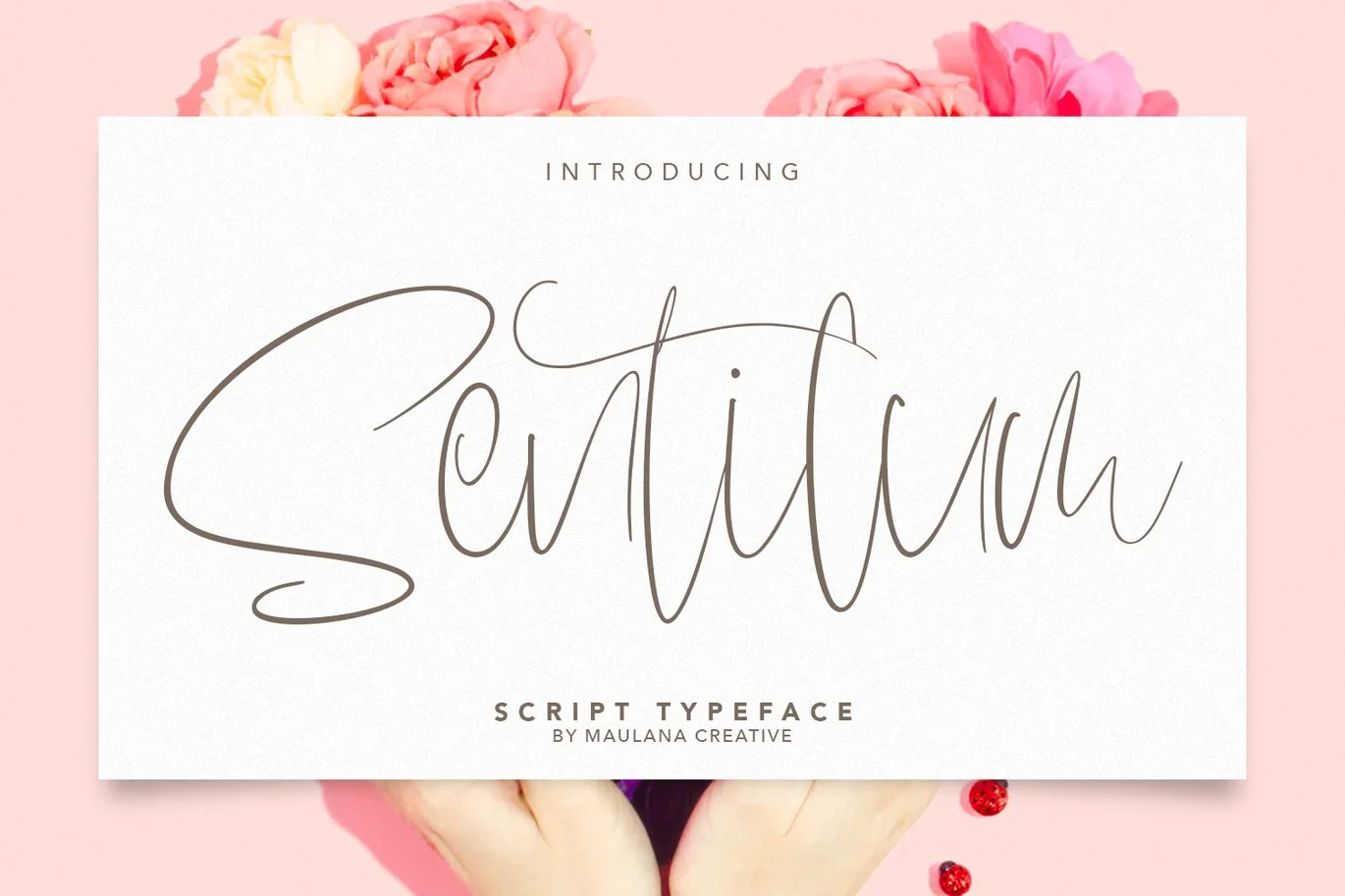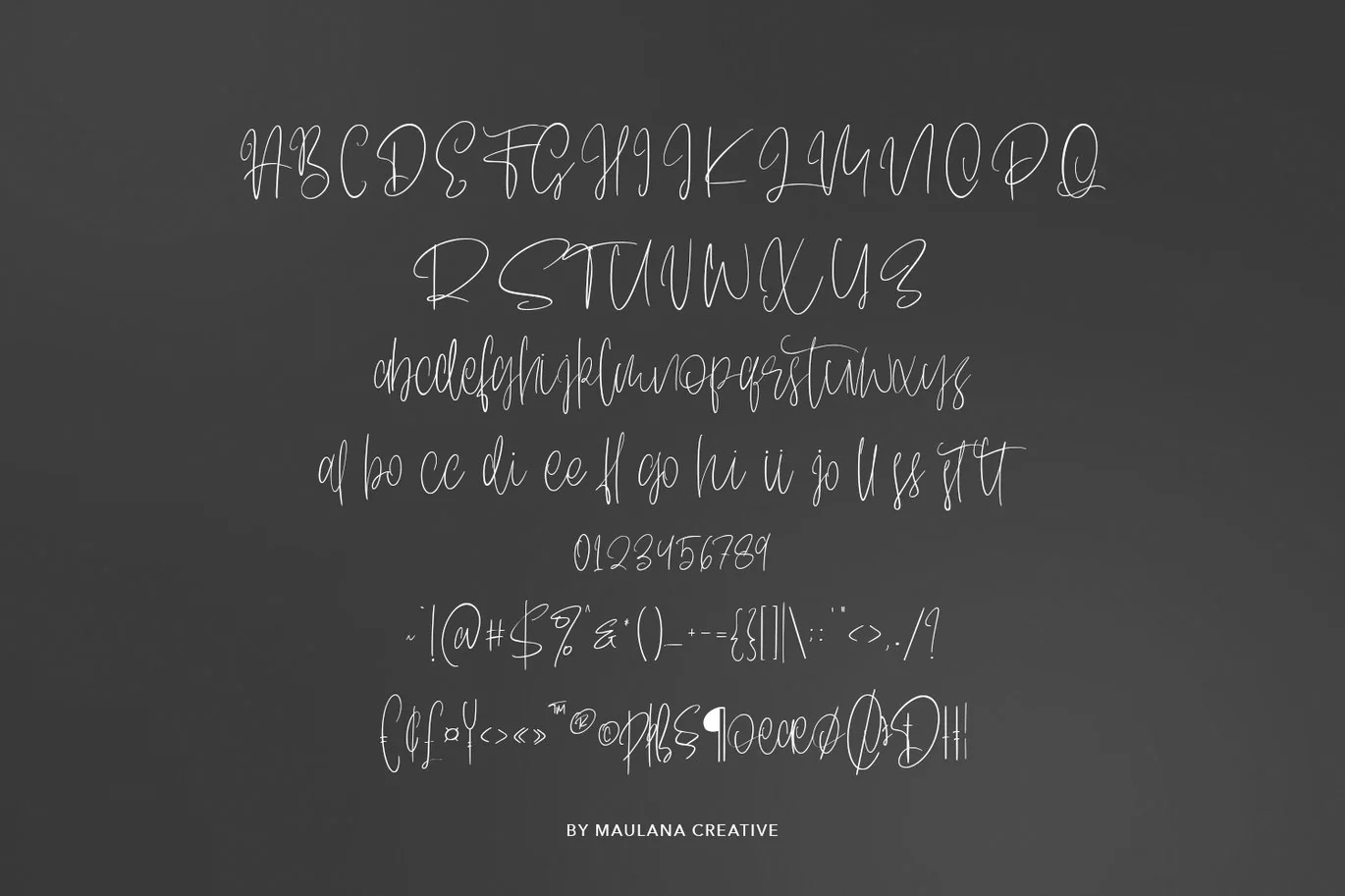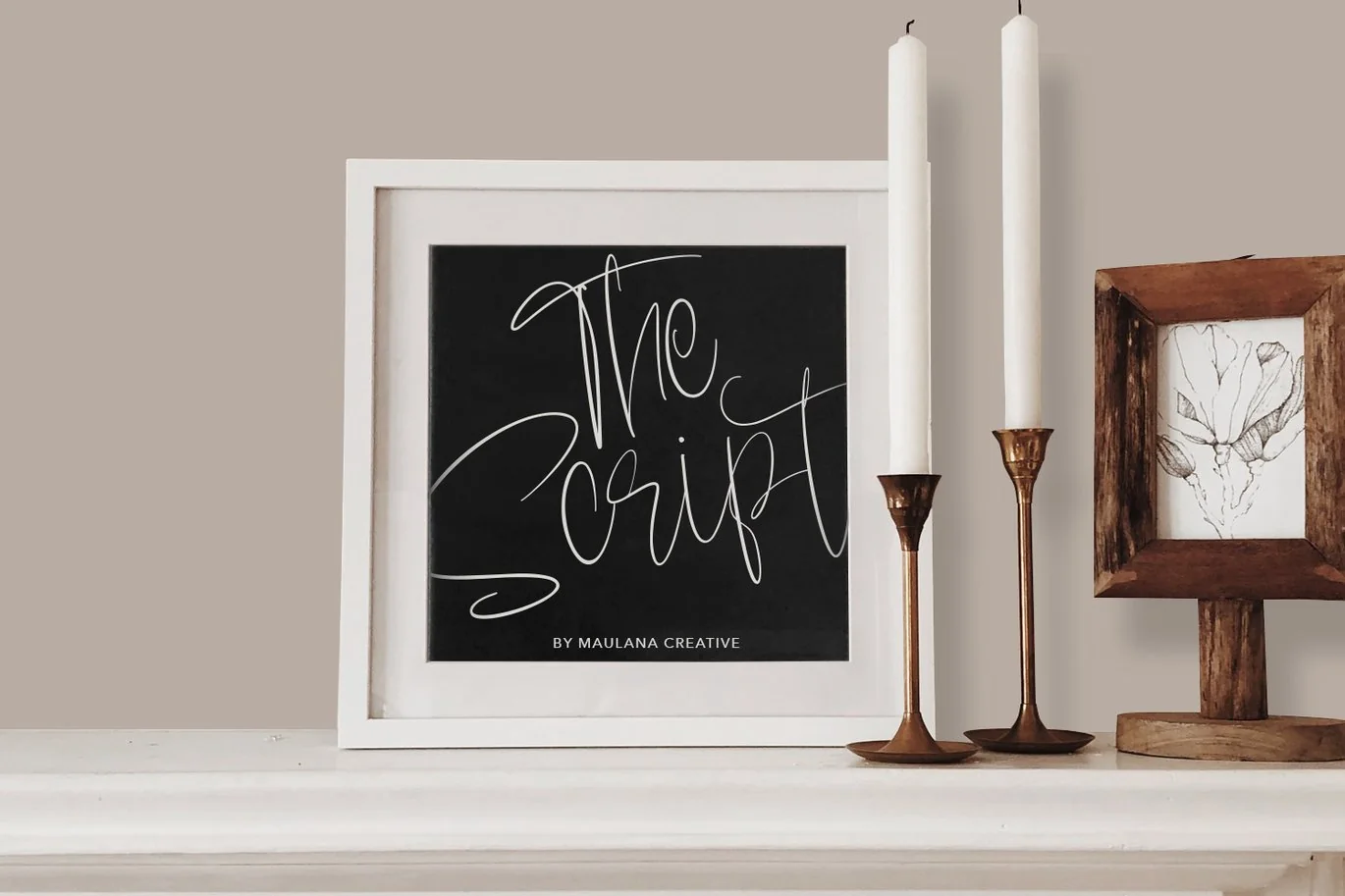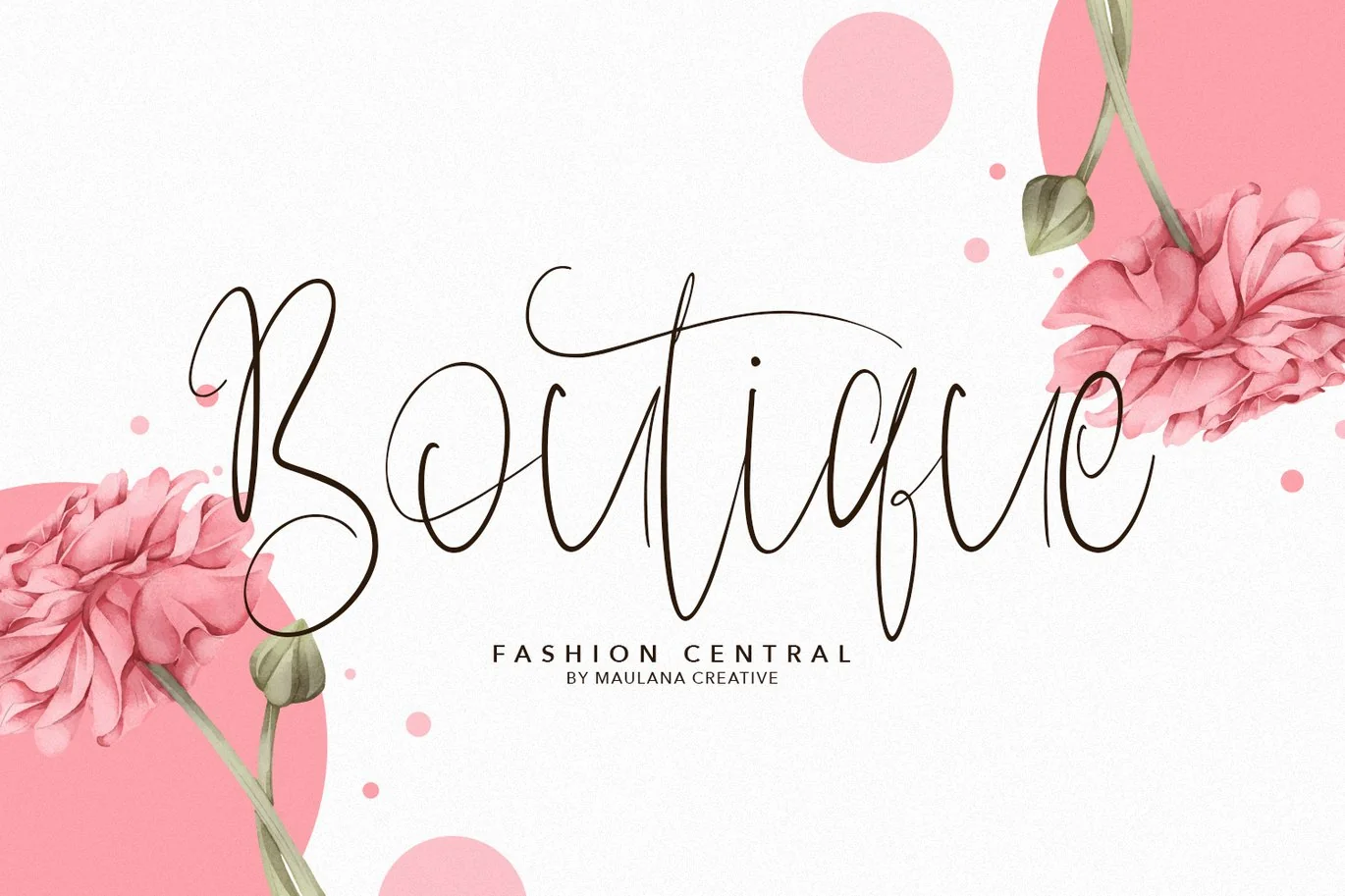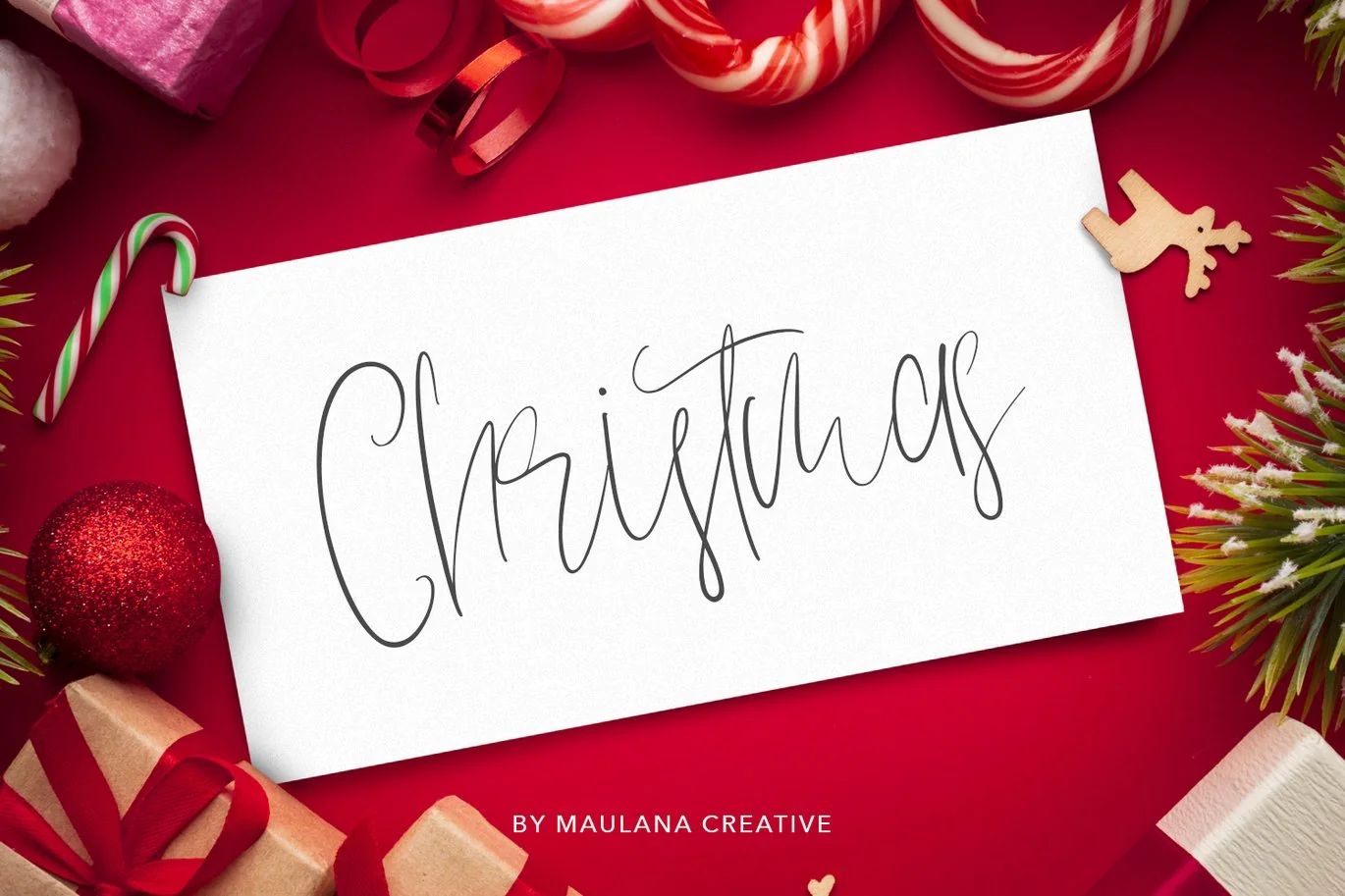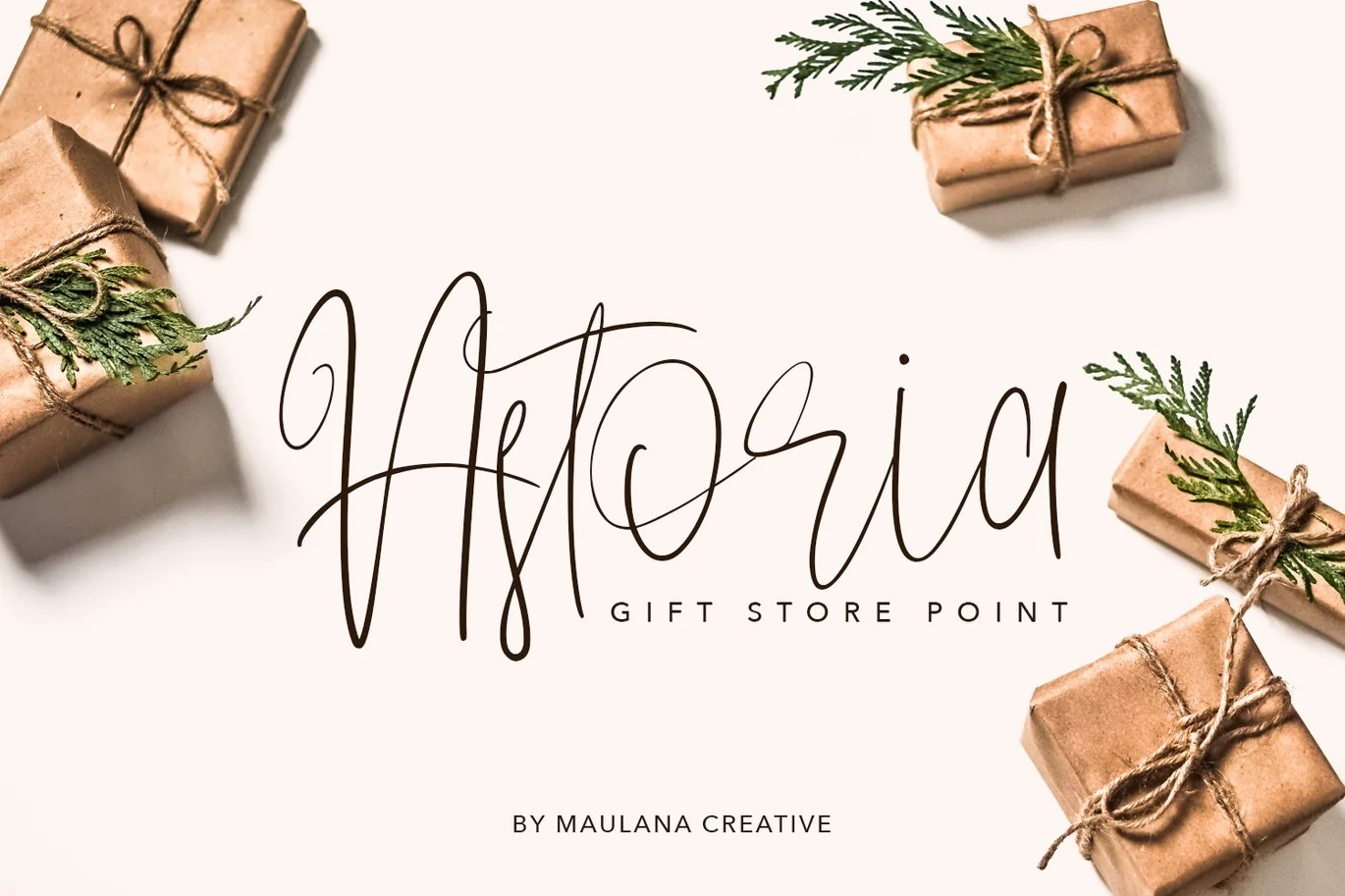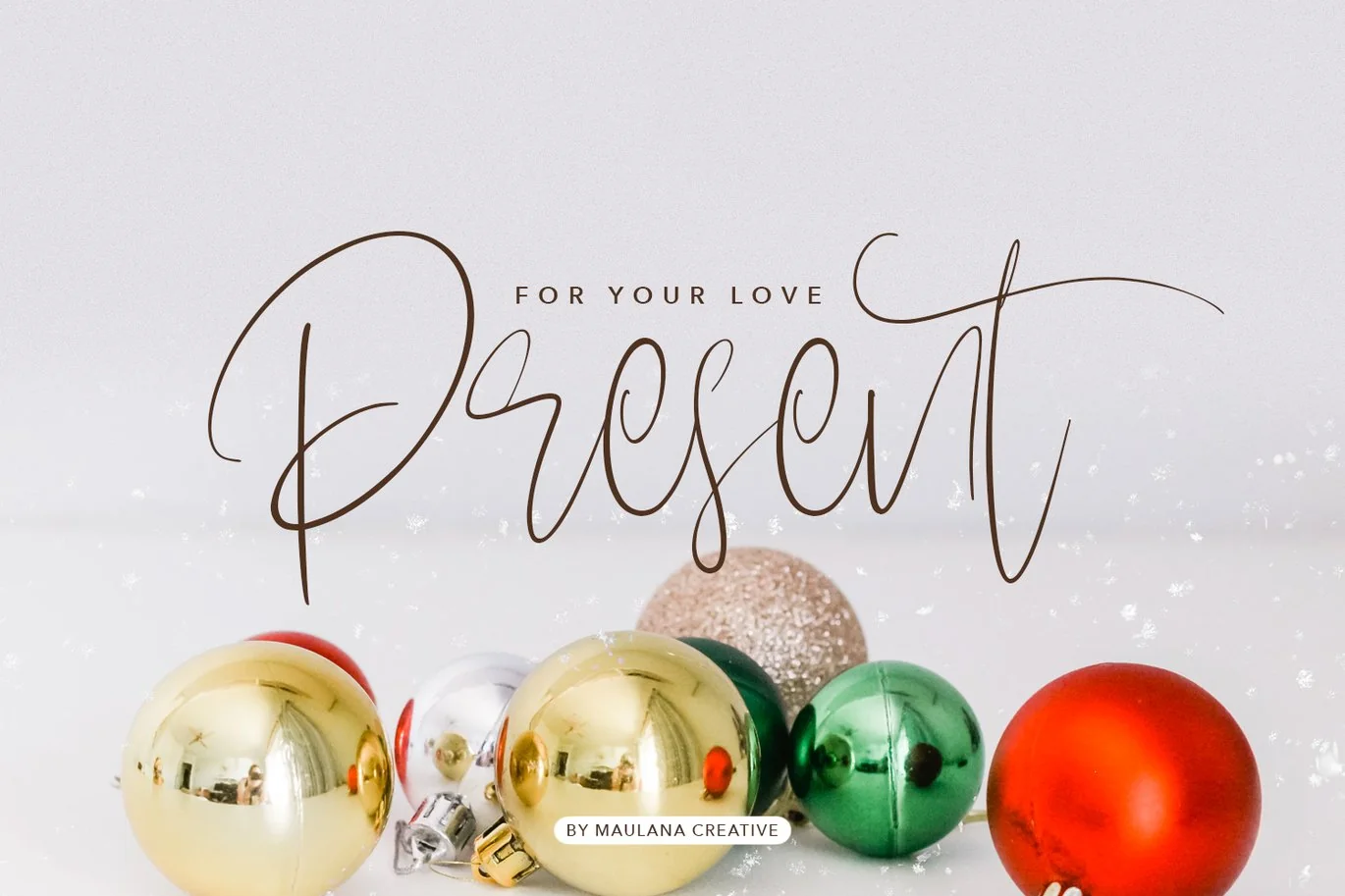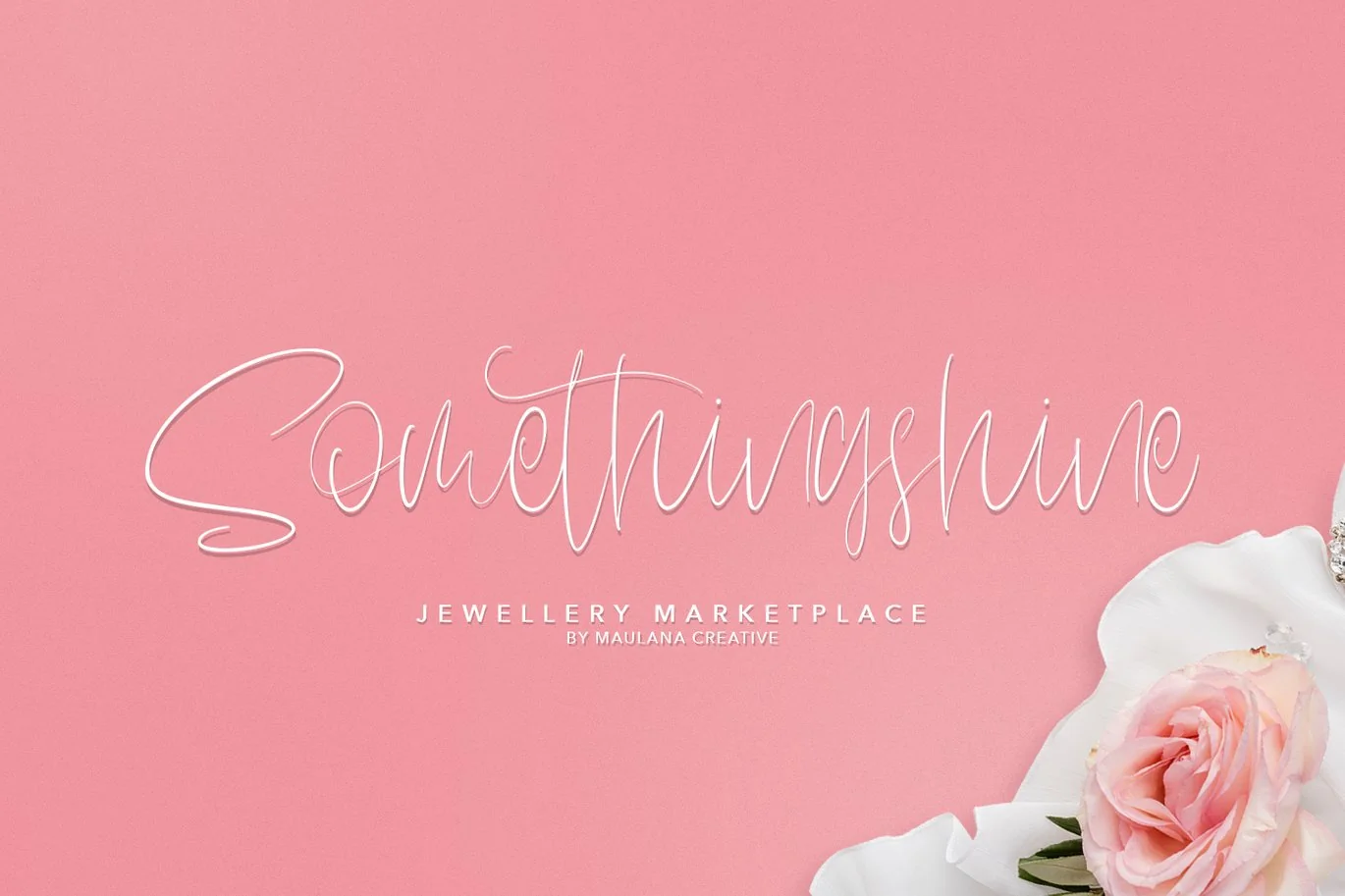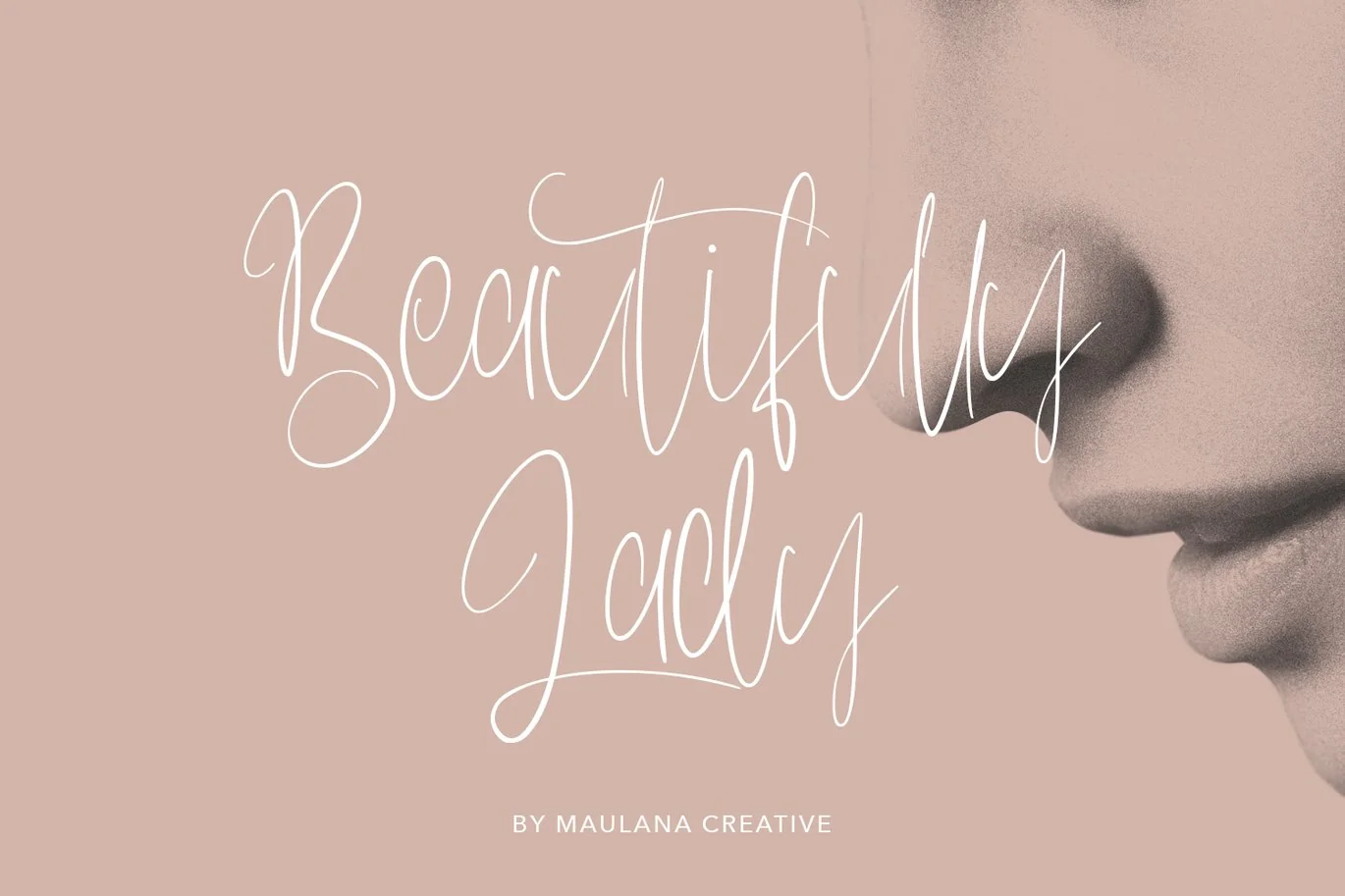
Sentilum Script Calligraphy Handmade Font Typeface
Give your designs an authentic handcrafted feel. “Sentilum” is perfectly suited to signature, stationery, logo, typography quotes, magazine or book cover, website header, clothing, branding, packaging design and more.